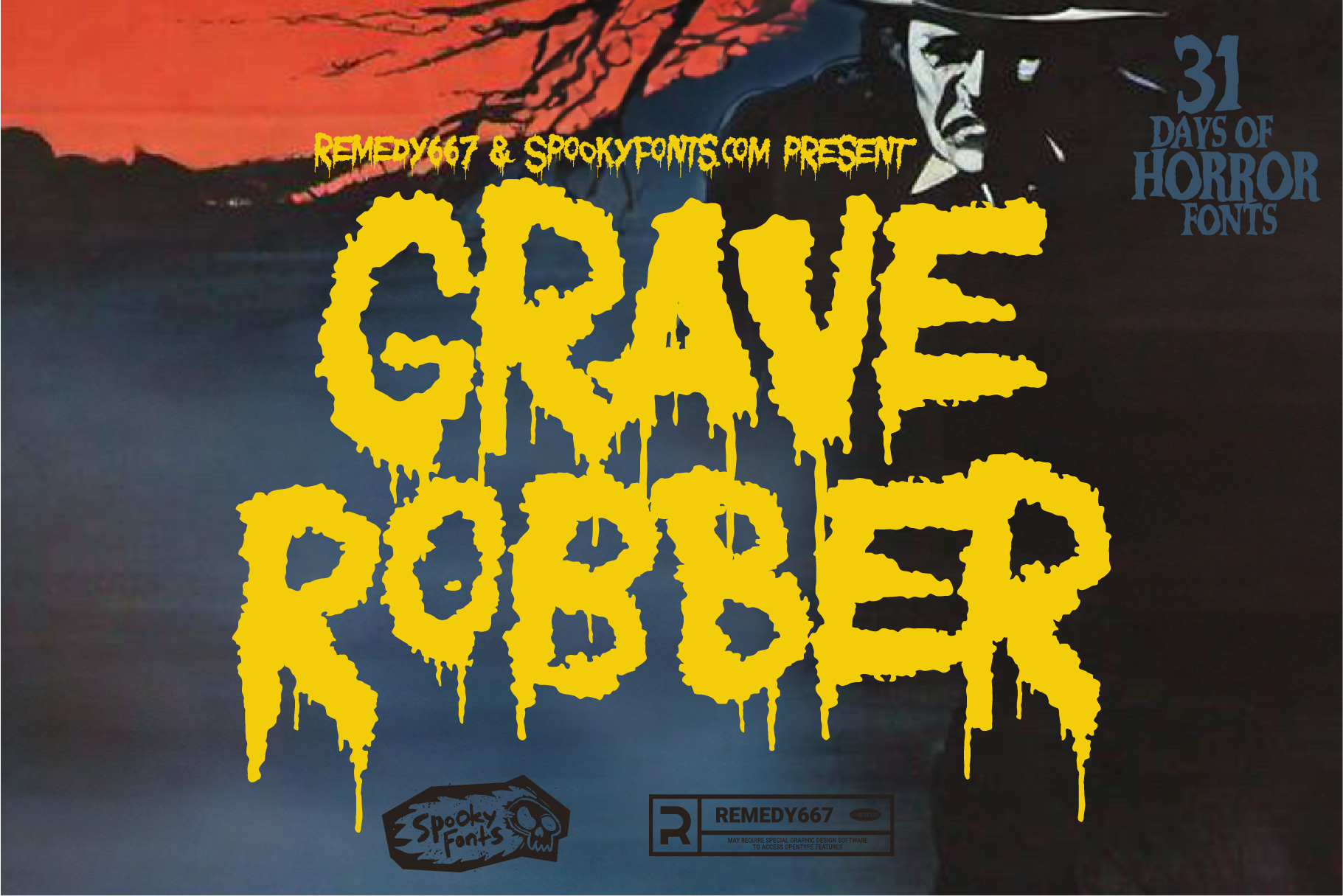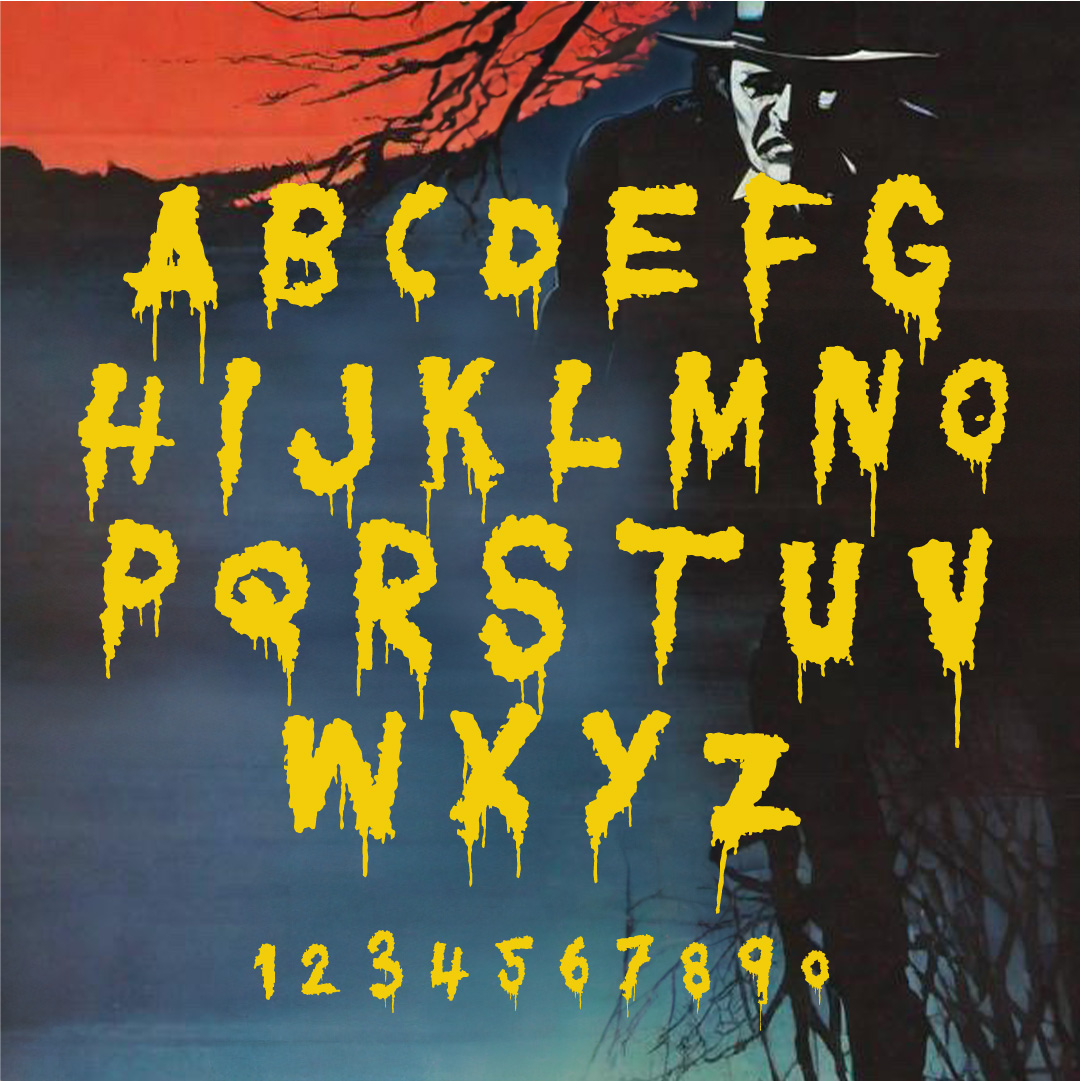
Welcome to the dark and twisted world of Grave Robber, the font that will send shivers down your spine and make your heart race with every stroke. Inspired by 1980s punk rock horror movies, this typeface is not for the faint of heart. Its jagged edges and eerie curves embody the essence of terror, perfect for adding a chilling touch to your designs.
With Grave Robber, you’ll summon a macabre atmosphere like never before. Each letter oozes with unsettling energy, casting an ominous shadow over any project it graces. From movie posters to album covers or even haunted house flyers, this font commands attention and demands fear from all who lay eyes upon it.
But beware! Once you unleash Grave Robber onto your design canvas, there’s no turning back. It possesses an unrelenting grip on its viewers’ minds – captivating them with its otherworldly charm while instilling a foreboding sense of dread. So if you dare venture into the realm of darkness and desire a horrifyingly captivating typographic experience like no other, embrace Grave Robber…if you dare!